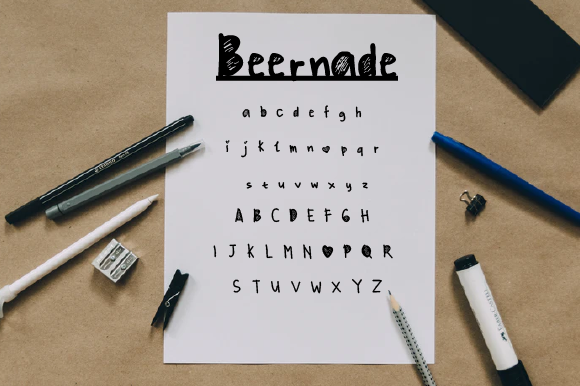
About Beernade Font
Beernade sounds like a delightful and playful handwritten font that offers a plethora of creative possibilities. With its cute and quirky charm, this font can add a touch of whimsy and fun to a wide range of design projects. Let’s explore some creative ideas for using Beernade font to bring your designs to life:
1. Children’s Book Illustrations: Use Beernade font for typography and titles in children’s books to enhance the playful and whimsical atmosphere.
2. Birthday Party Invitations: Design colorful and fun birthday party invitations using Beernade font, perfect for capturing the celebratory mood.
3. Crafty DIY Projects: Incorporate Beernade font in various DIY projects, such as personalized greeting cards, gift tags, and scrapbooking.
4. Playful Logos and Branding: Apply Beernade font in logos and branding for businesses catering to children, toys, or creative industries.
5. Charming Social Media Graphics: Use Beernade font in social media posts and graphics to create engaging content for playful and lighthearted brands.
6. Cute Product Packaging: Design adorable product labels and packaging using Beernade font for items like homemade treats or handcrafted goods.
7. Festive Holiday Cards: Add a touch of cheer to holiday cards with Beernade font, suitable for Christmas, Halloween, Easter, and more.
8. Whimsical Event Flyers: Create eye-catching event flyers with Beernade font for whimsical gatherings, workshops, or themed parties.
9. Animated Motion Graphics: Utilize Beernade font in animated videos or motion graphics to add a touch of playfulness to the visuals.
10. Adorable Website Design: Incorporate Beernade font into web design for websites with a youthful and lively tone.
11. Cute Food Menus: Design cute and quirky food menus for cafes, ice cream shops, or bakeries using Beernade font.
12. Handmade Product Descriptions: Use Beernade font to write charming and personable product descriptions for handcrafted items.
13. Pet-Themed Designs: Apply Beernade font in designs for pet-related products, services, or events, such as pet store promotions or adoption fairs.
14. Cartoon Illustrations: Combine Beernade font with playful cartoon illustrations to create visually appealing comic strips or character designs.
15. Amusing Quotes and Posters: Create humorous and amusing quote posters using Beernade font, perfect for adding a smile to any space.
16. Adorable Party Decorations: Design delightful party decorations, such as banners and bunting, with Beernade font for festive celebrations.
17. Colorful Art Prints: Create vibrant and cheerful art prints using Beernade font to bring positivity to any room.
18. Playful Typography Art: Use Beernade font to craft typography art featuring inspirational or funny messages.
19. Cheerful T-shirt Designs: Apply Beernade font in designing cheerful and cute T-shirt designs, suitable for casual wear.
20. Kid-Friendly Apps and Games: Incorporate Beernade font in user interfaces for apps and games catering to children or family-friendly audiences.
In conclusion, Beernade is a cute and quirky handwritten font that lends itself perfectly to a wide range of creative projects. Its playful and natural style opens up exciting possibilities for children’s illustrations, playful branding, DIY crafts, and much more. Whether you’re working on birthday invitations or animated motion graphics, Beernade font is sure to infuse your designs with a delightful and whimsical touch that sparks joy and captures the imagination of your audience.